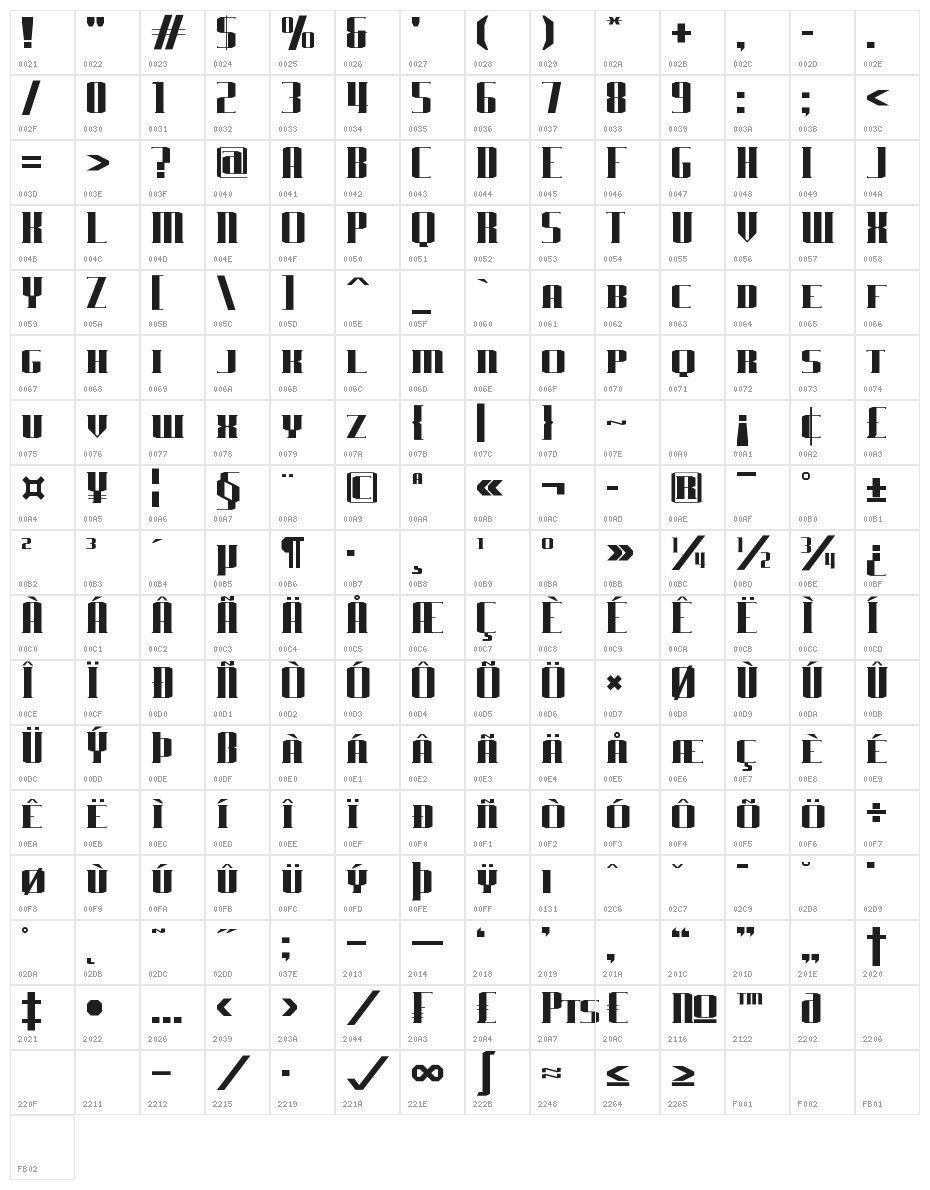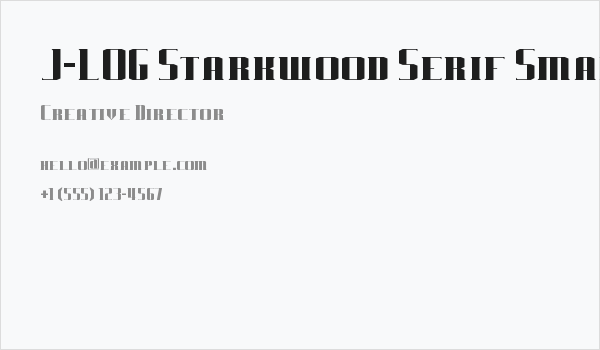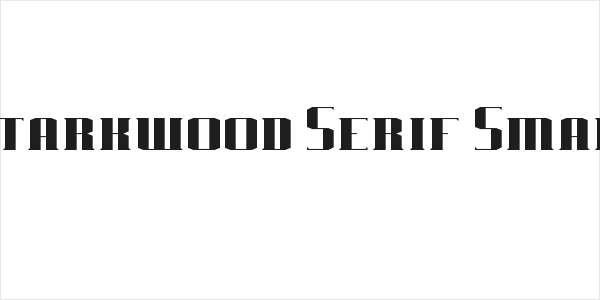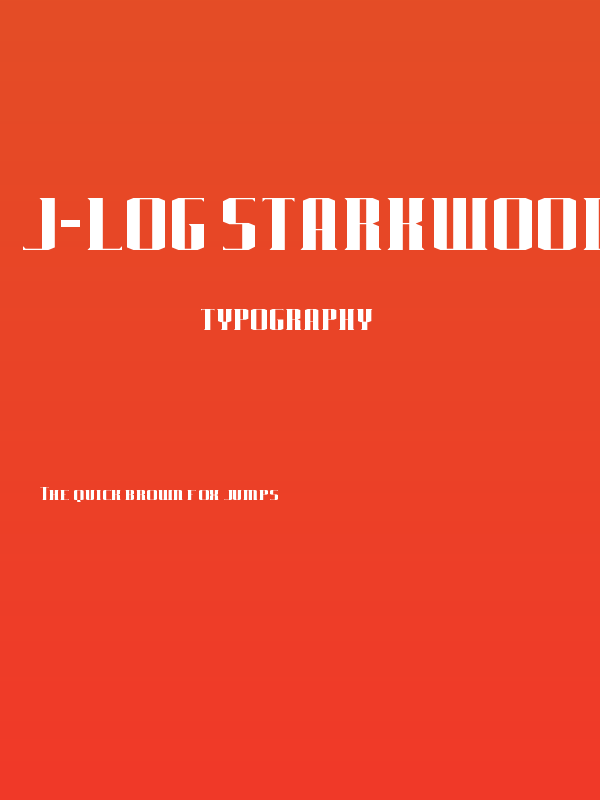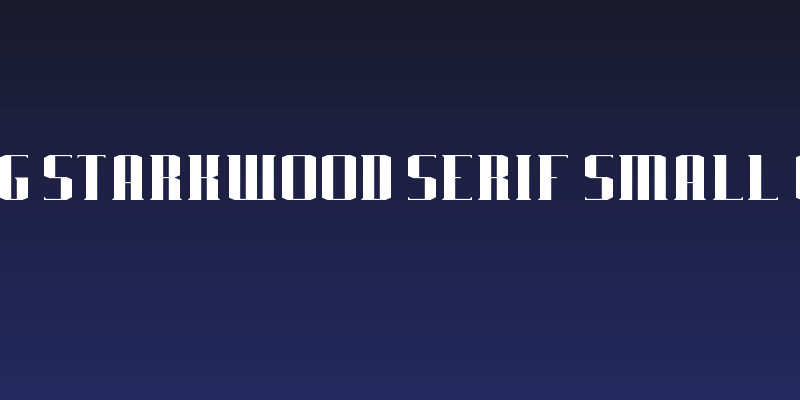
J-LOG Starkwood Serif Small Caps Font
J-LOG Starkwood Serif Small Caps Description
This font features a bold and striking design with a strong presence. The characters are crafted with a distinct serif style, showcasing sharp edges and angular forms that give it a modern yet classic feel. The uppercase letters are prominent, with a uniform height that maintains consistency across the alphabet. The numerals are equally bold, ensuring readability and impact. Special characters are designed with the same attention to detail, making them stand out while maintaining harmony with the rest of the font. This font is ideal for projects that require a strong visual statement.